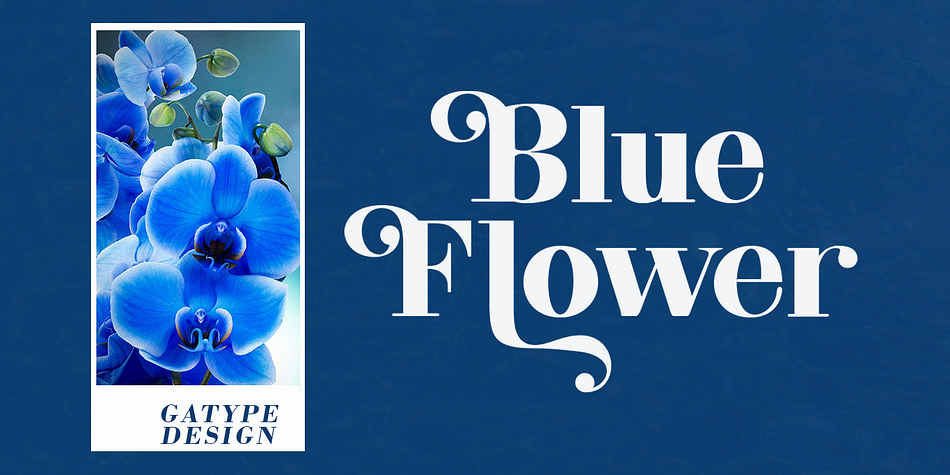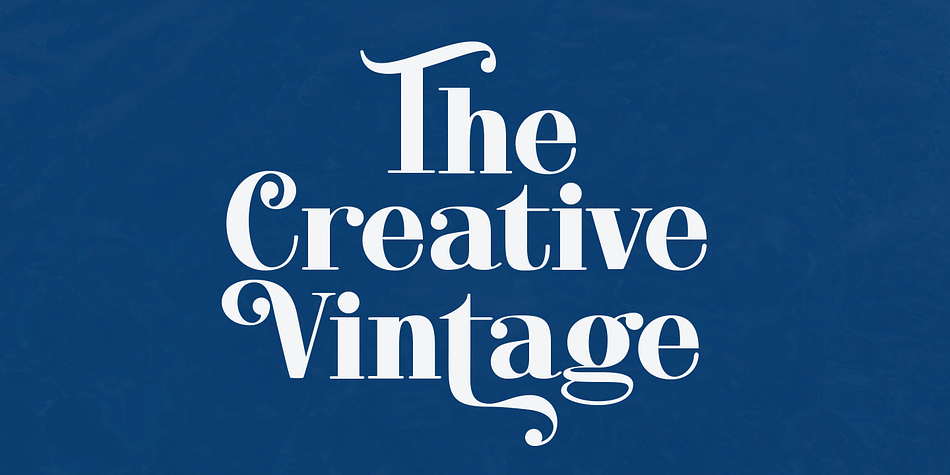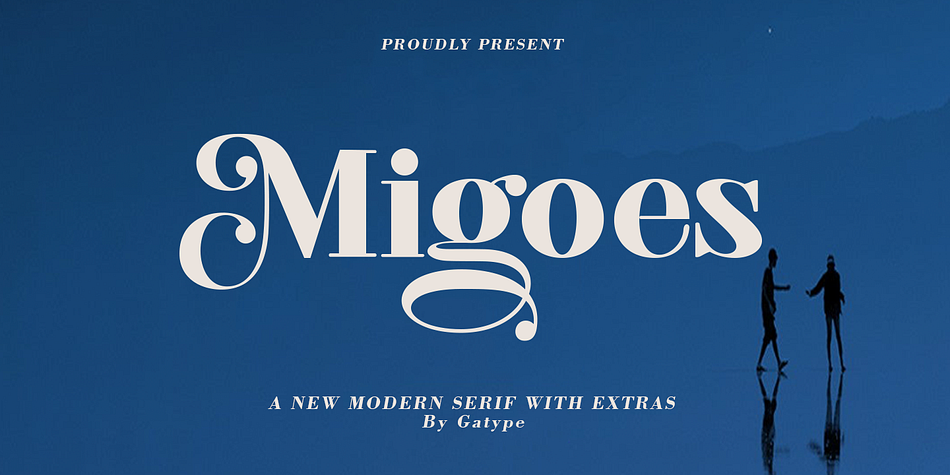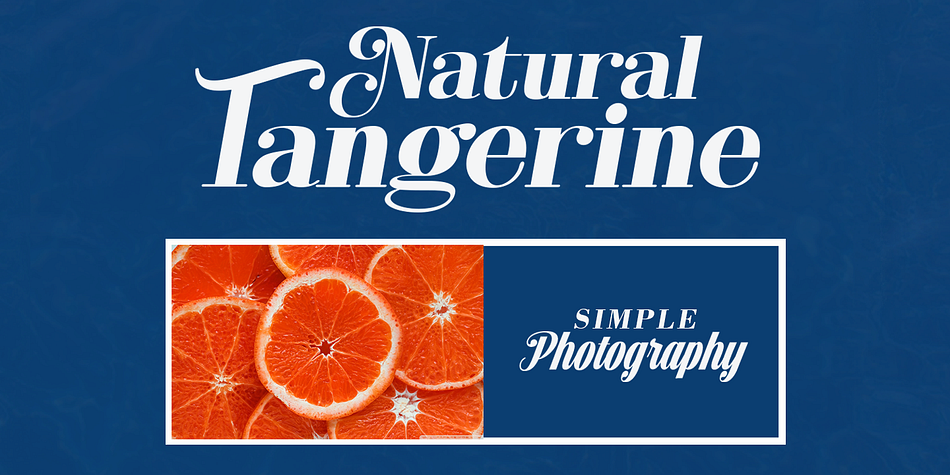
Migoes
Migoes is a display serif and retro font family published by Gatype.
Migoes is a modern vintage serif font that is packaged in a modern and classy style, complete with your OpenType feature access to access a large selection of alternative fonts and bindings, the choice of fonts you like from large and small font variations to luxurious and elegant looks. This font is perfect for branding projects, Logo design, Apparel Branding, packaging, magazine titles, advertisements, T-shirts, postcards and more.